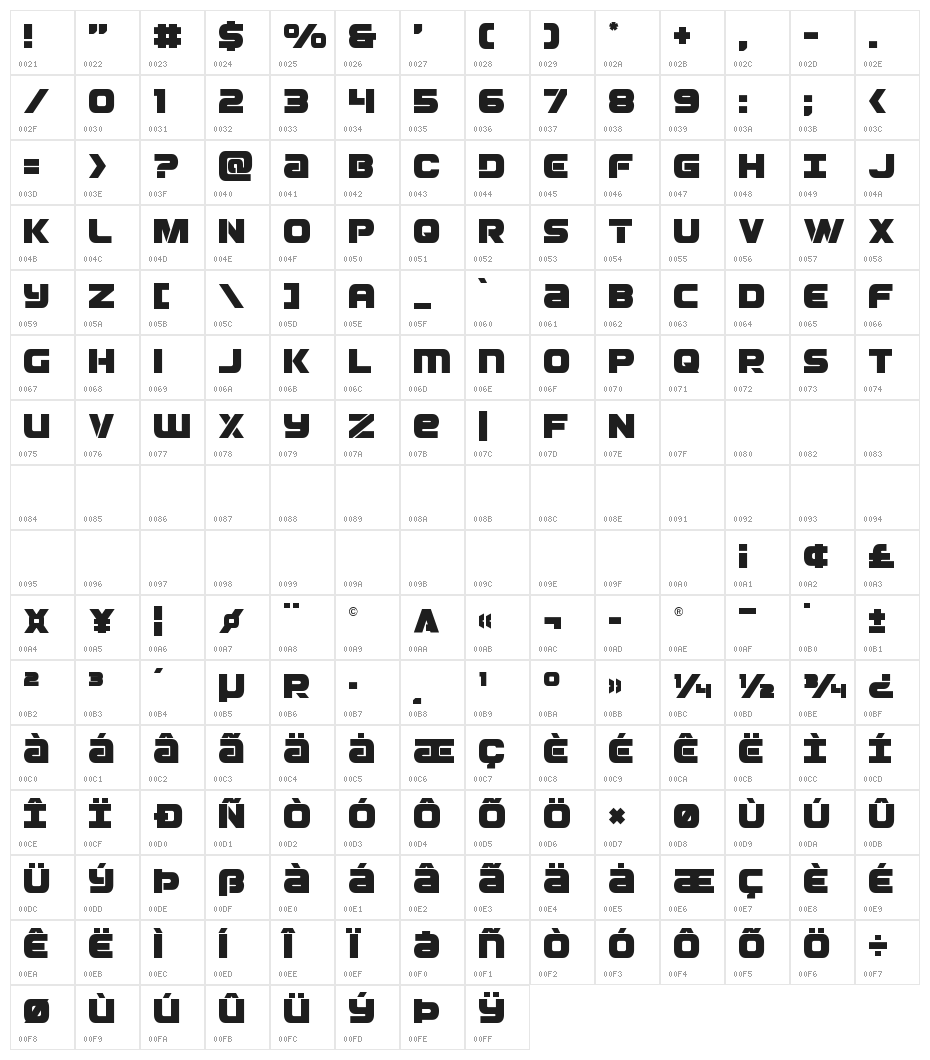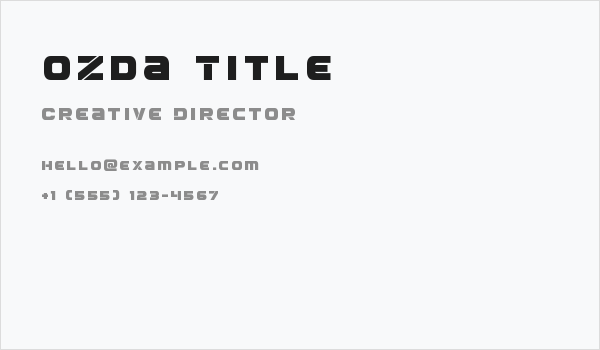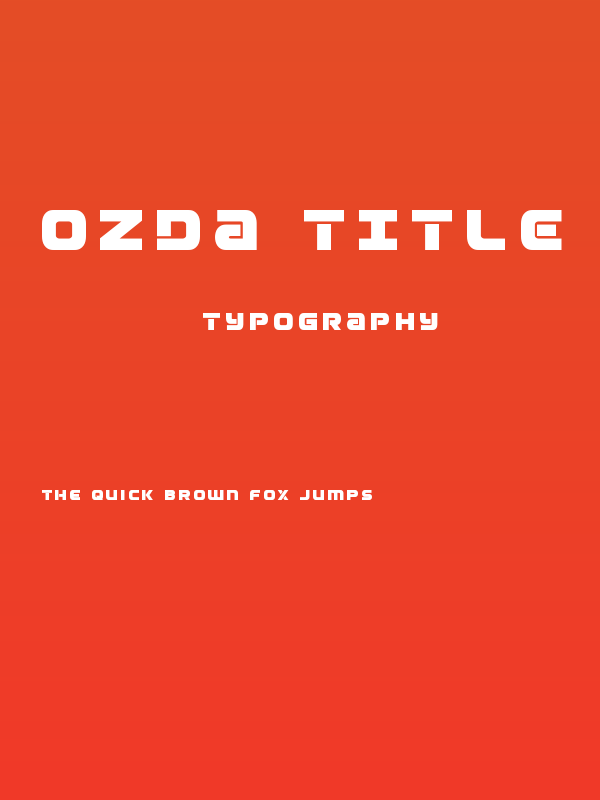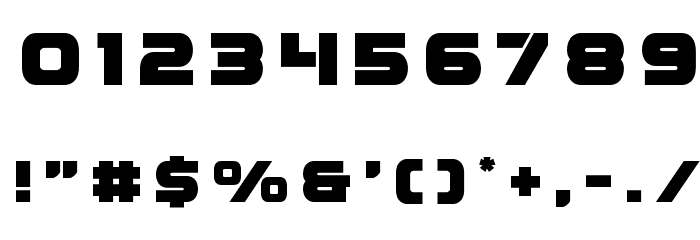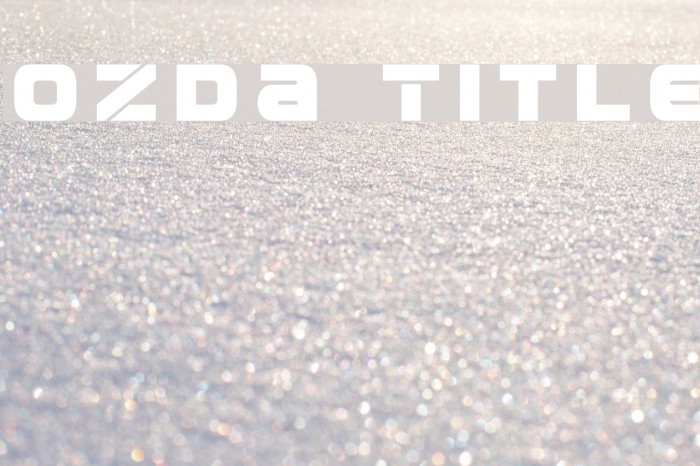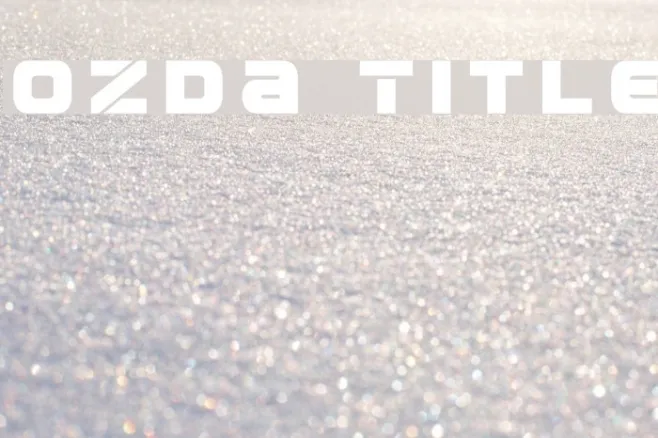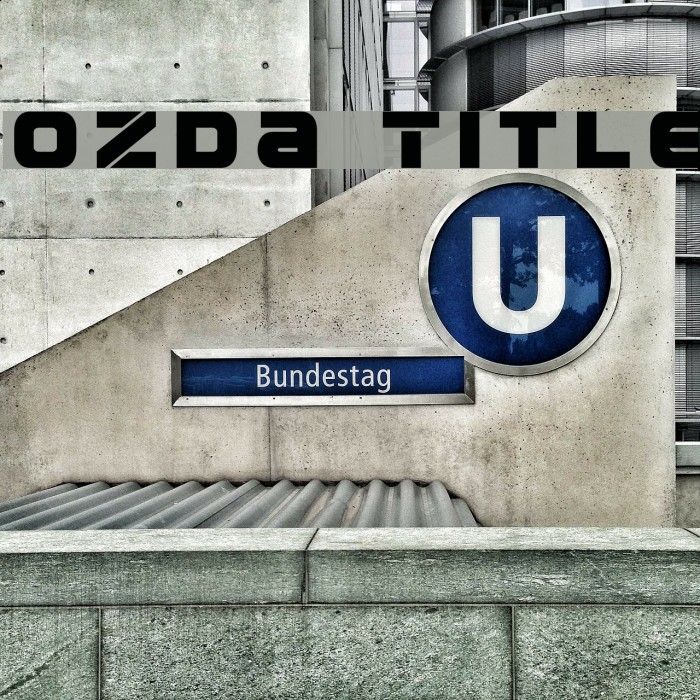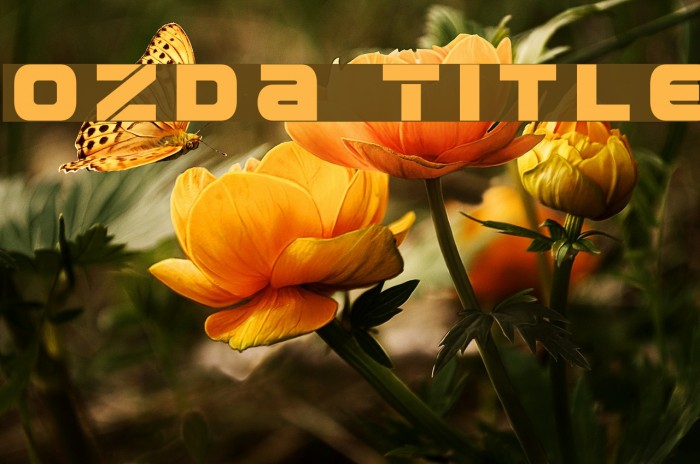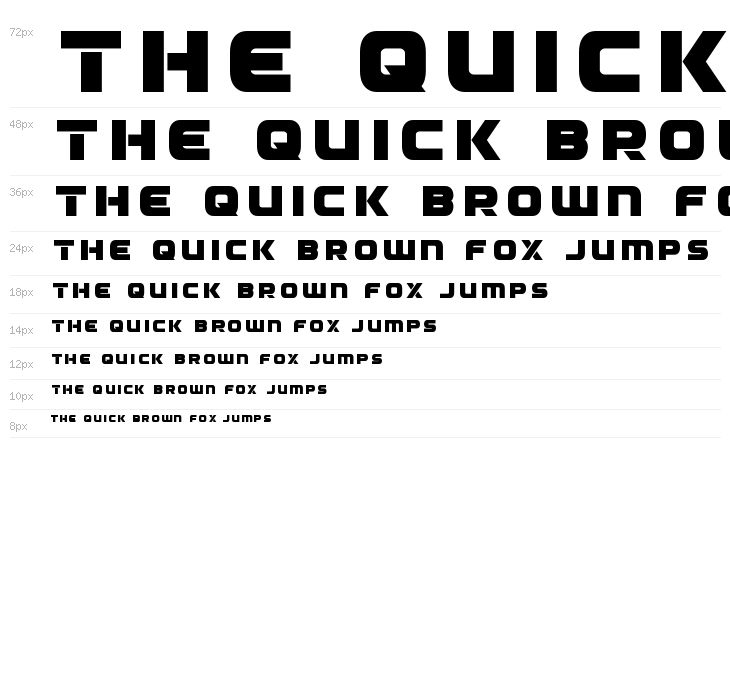
Ozda Title Font
Ozda Title Description
This font features a bold and geometric design with a strong presence. Each character is crafted with sharp angles and a blocky structure, giving it a futuristic and industrial feel. The uppercase and lowercase letters maintain a consistent style, with the lowercase slightly smaller but equally bold. The numerals are clear and robust, matching the overall aesthetic. Special characters are designed to complement the alphanumeric set, maintaining the same bold and angular characteristics. This font is ideal for making a strong visual impact.
| Proposed Projects | Ideal for use in technology branding, video game titles, sci-fi movie posters, and modern advertising campaigns. |